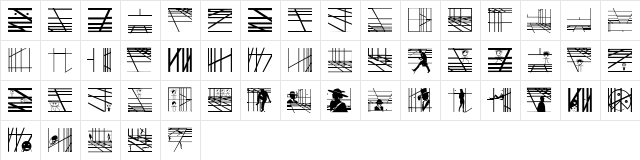
DadaGridB Regular
Design Context for DadaGridB Typeface
DadaGridB is a composed and adaptable typeface that performs quietly and consistently across a wide range of design contexts.